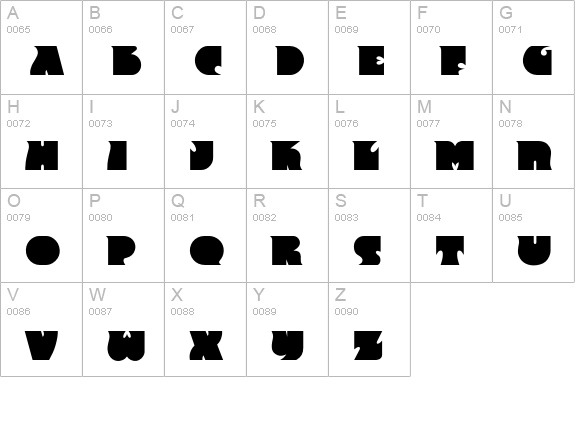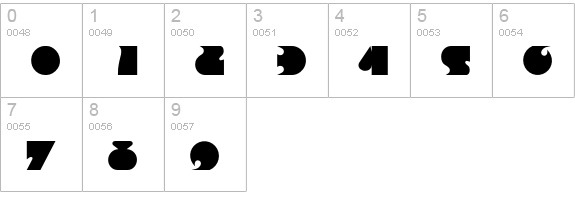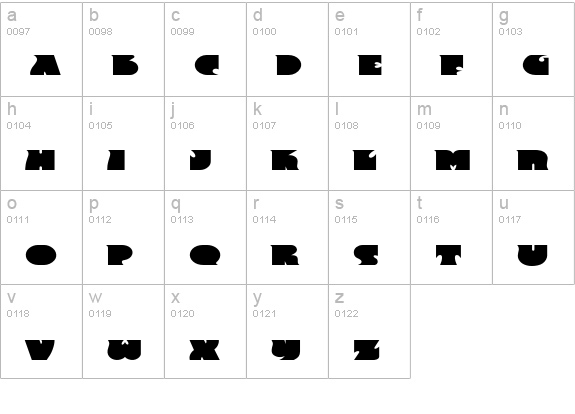
Frency Font Details
Frency font is a modern and stylish typeface that exudes elegance and sophistication. Its sleek lines and unique curves make it perfect for a wide range of design projects, from branding to editorial design. Frency font is versatile and can be used for both headers and body text, adding a touch of class to any project. The best part about Frency font is that it is completely free to download! You can get your hands on this exquisite typeface at FontsMarket.com without spending a dime. Whether you're a designer looking to elevate your projects or a business owner wanting to enhance your brand identity, Frency font is the perfect choice. Download it today and add a touch of luxury to your designs.